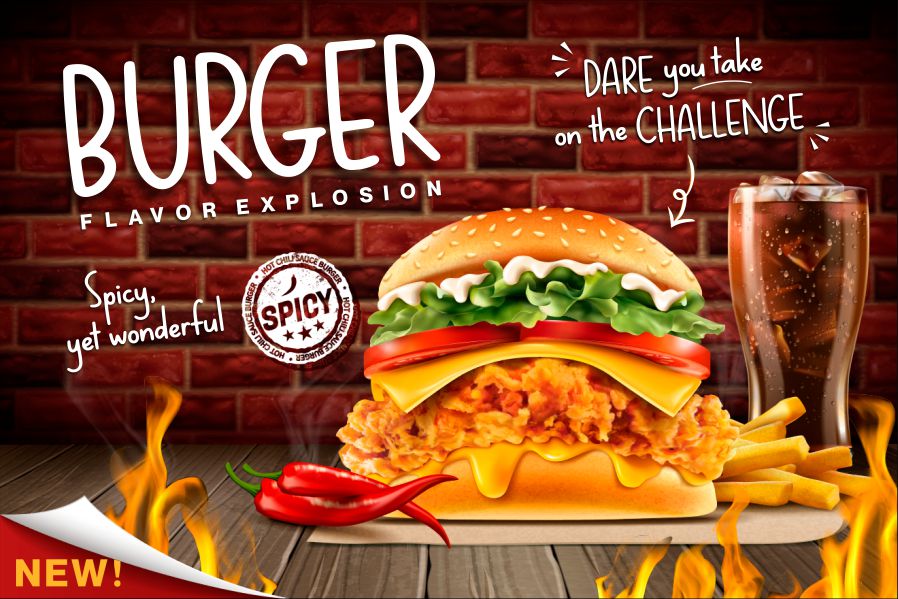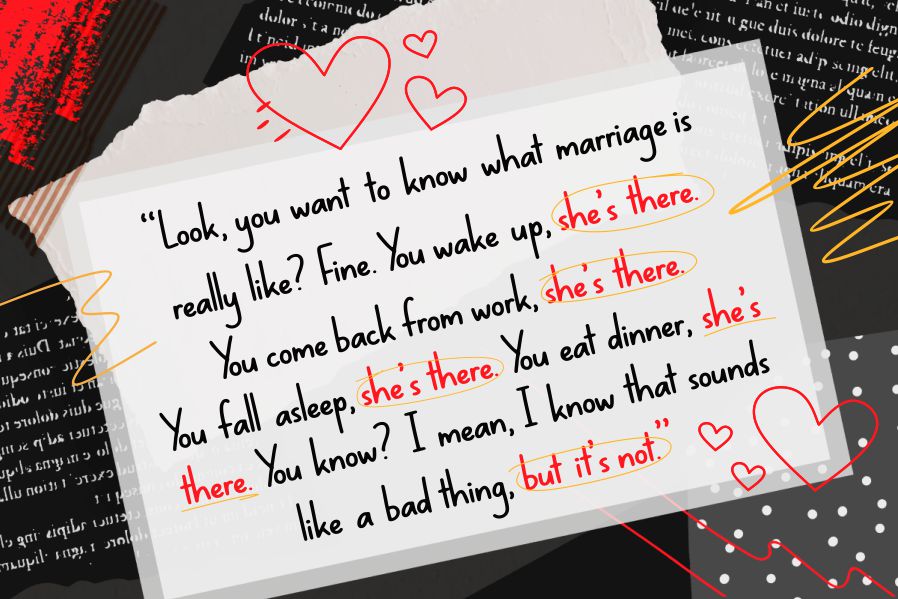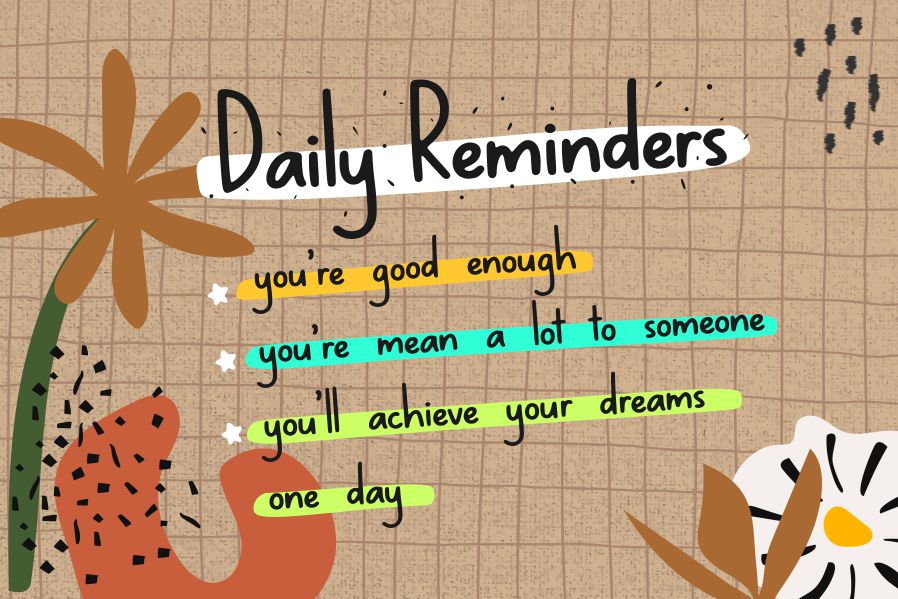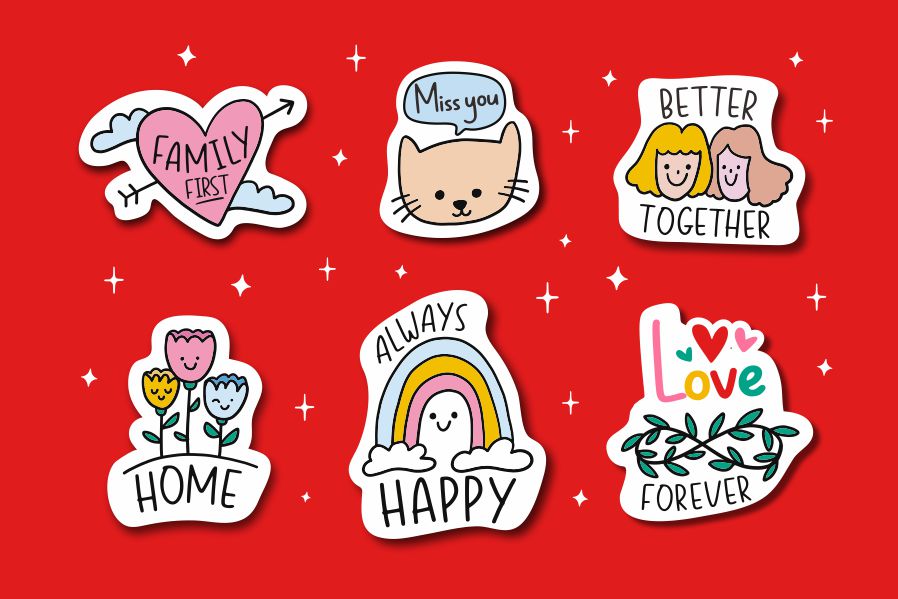
Midspicy Font
Midspicy Display Font
This is a handmade sans serif font. Midspicy is perfect for product packaging, branding projects, magazines, social media, weddings, or just used to express words above the background.